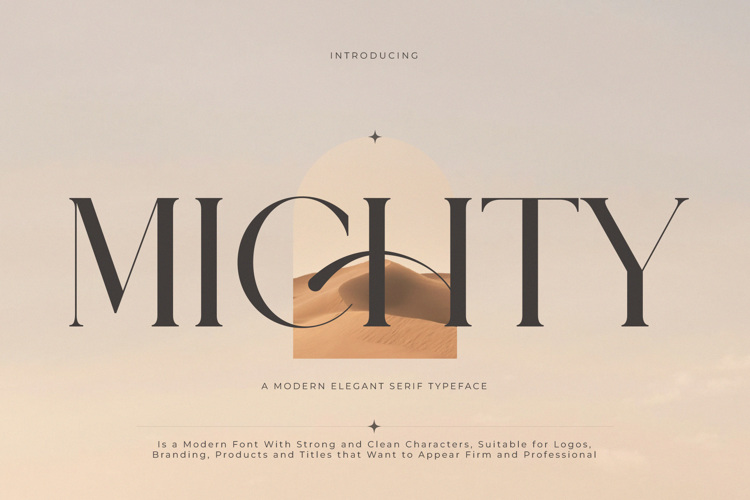
Michty Font
Michty is a sophisticated high-contrast serif with a refined modern character. Elegant hairline serifs, striking thick-thin contrast, and graceful swashes lend a luxurious, fashion-editorial style to logos, brand identities, wedding stationery, editorial design, and beauty projects. Free for personal use; a commercial license is available from the designer.